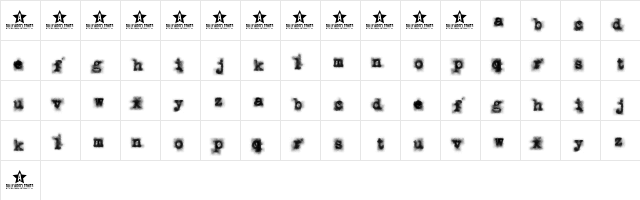
PUNKBABE Regular Free Font
PUNKBABE Regular
Foundry: Billy Argel
Designer: Billy Argel
Design Context for PUNKBABE
PUNKBABE is a composed and adaptable typeface that performs quietly and consistently across a wide range of design contexts.